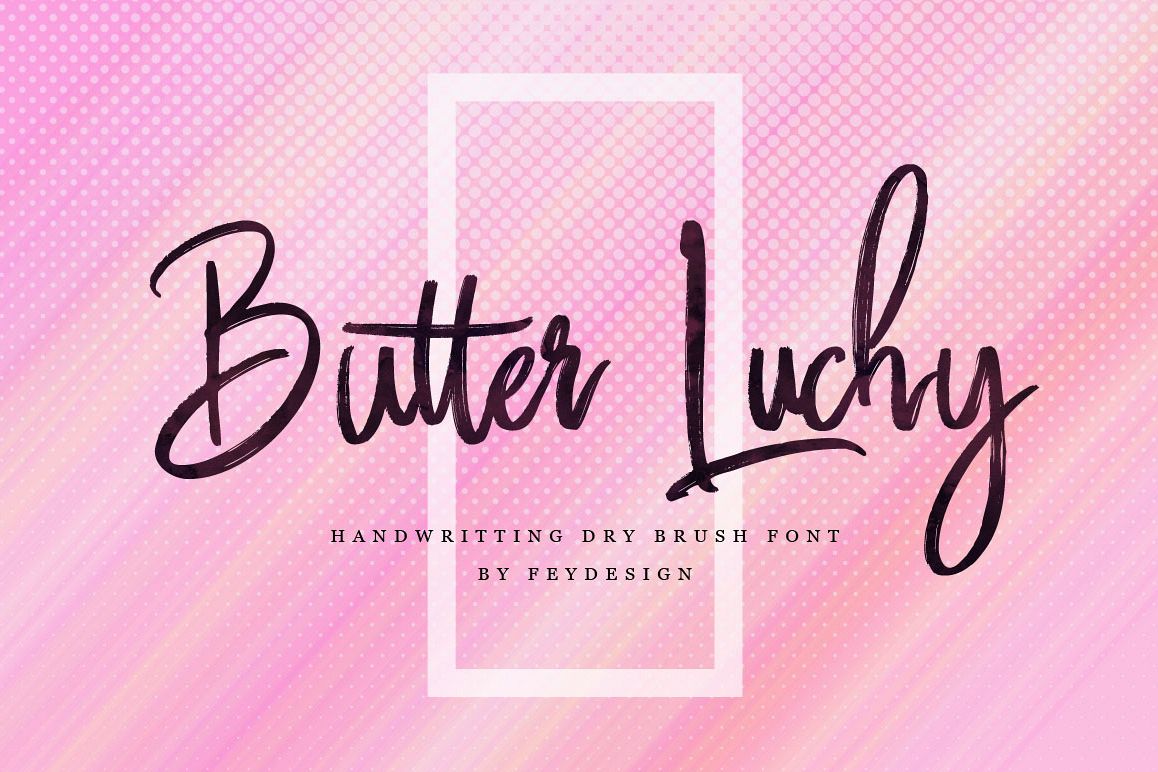
Butter Luchy - Handwritting Brush Font
Butter Luchy is Handwritten script font with handlettering Brush Style, so much opentype feature include of the font. Suitable for design, element design, wedding, event, t-shirt, logo, badges, sticker, and awesome work, etc...
Standard Ligatures:
at,it,ut,et,ot,aj,ij,uj,ej,oj,al,il,ul,el,ol,ay,iy,uy,ey,oy,ag,ig,ug,eg,og,ah,ih,uh,eh,
oh,ak,ik,uk,ek,ok,ll,tt,aa,ii,uu,ee,oo,mm,nn,rr,ss,zz,
Multilanguage Support:
ÀÁÂÃÄÅÆÇÈÉÊËÌÍÎÏÐÑÒÓÔÕÖØÙÚÛÜÝßàáâãäåæçèéêëìíîïðñòóôõöøùúûüýÿ
Feature Of The Font:
- Open Type Features Fonts
- Unique style fonts
- Multilanguage Support